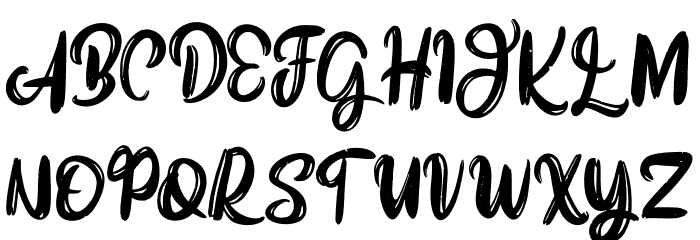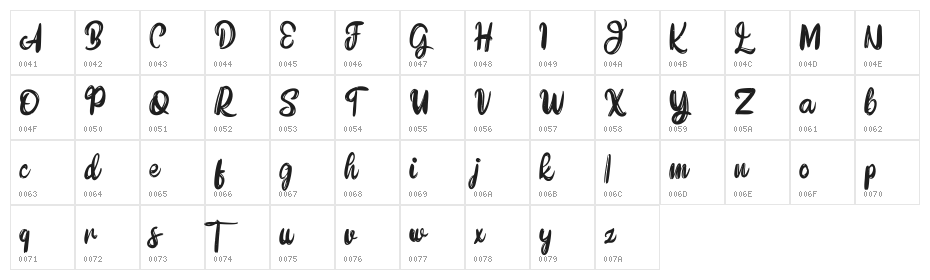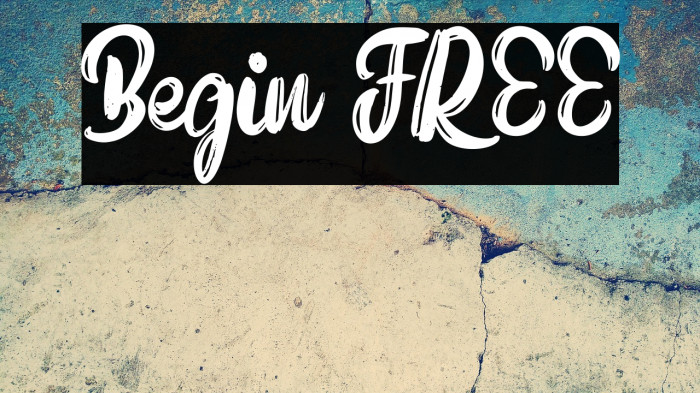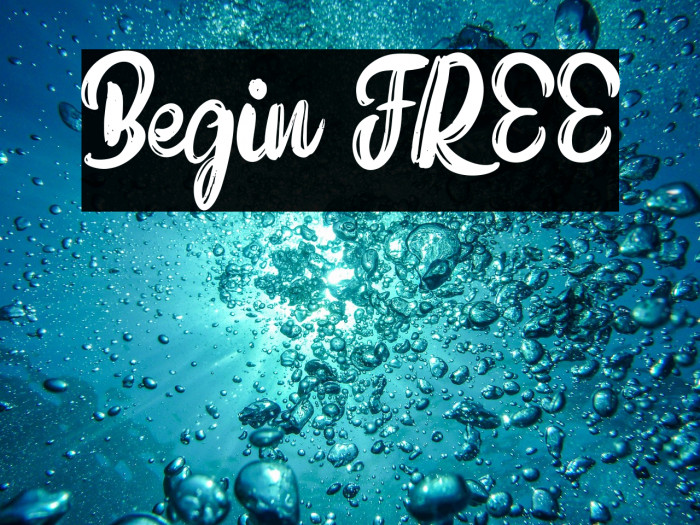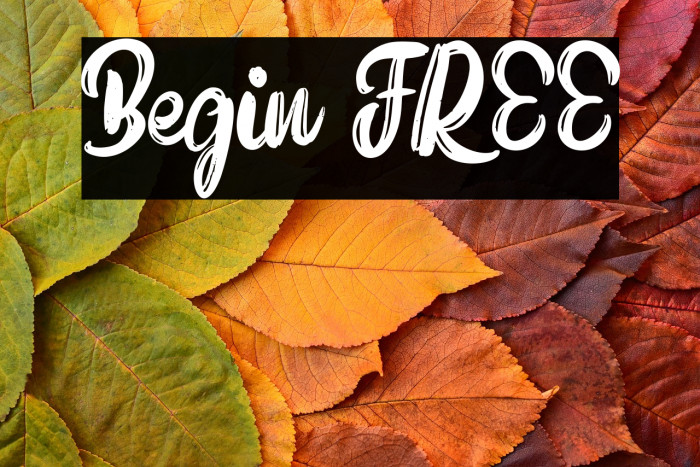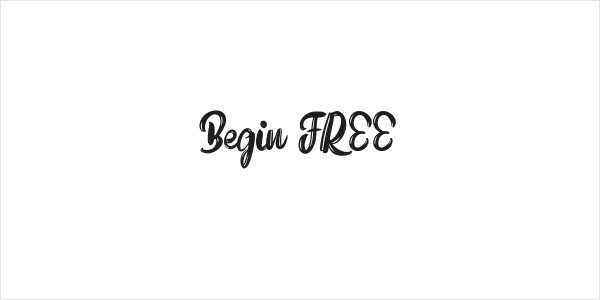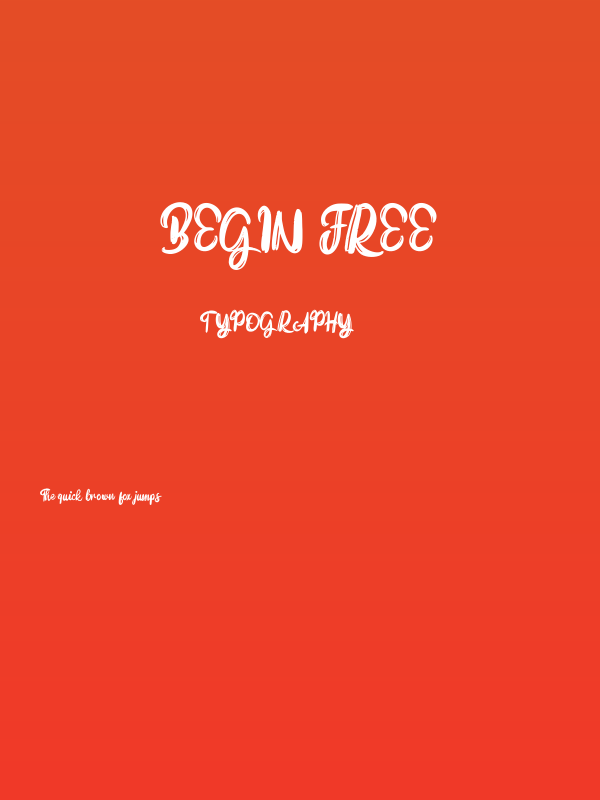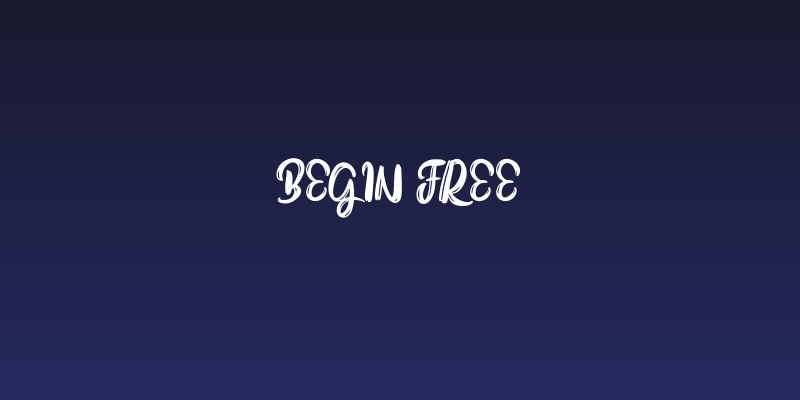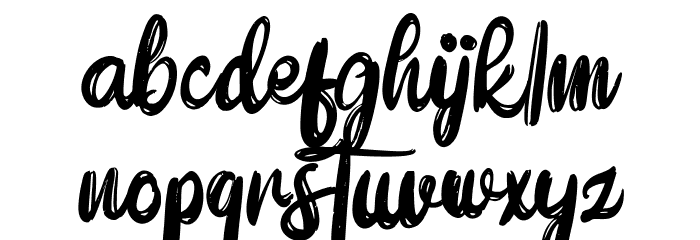
Begin FREE Font
Begin FREE Description
This font features a bold and expressive script style with a modern flair. The characters are designed with a dynamic brush-like appearance, giving them a lively and energetic feel. The uppercase letters are bold and slightly slanted, while the lowercase letters maintain a consistent flow with elegant curves. The font's thick strokes and high contrast between thick and thin lines add to its dramatic and eye-catching nature. This style is perfect for making a statement and capturing attention with its artistic and playful design.
| Proposed Projects | Ideal for branding, logos, posters, and social media graphics where a dynamic and artistic touch is desired. |